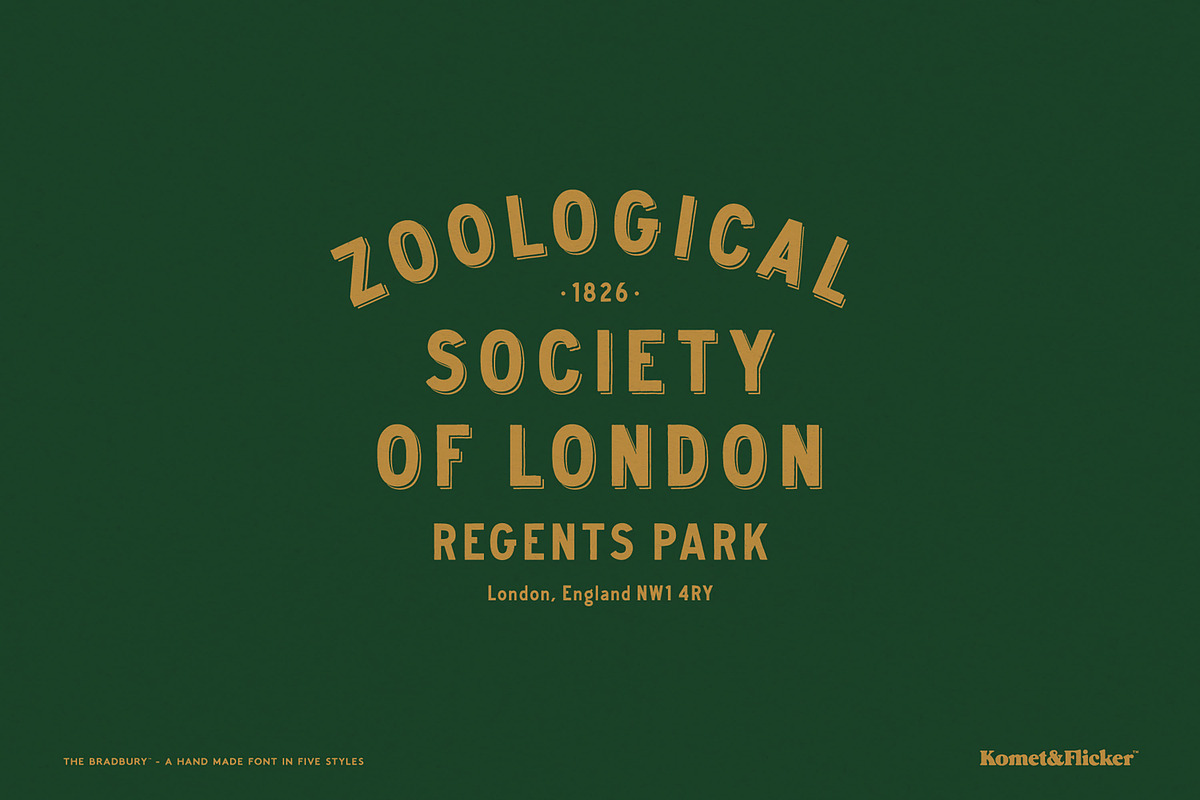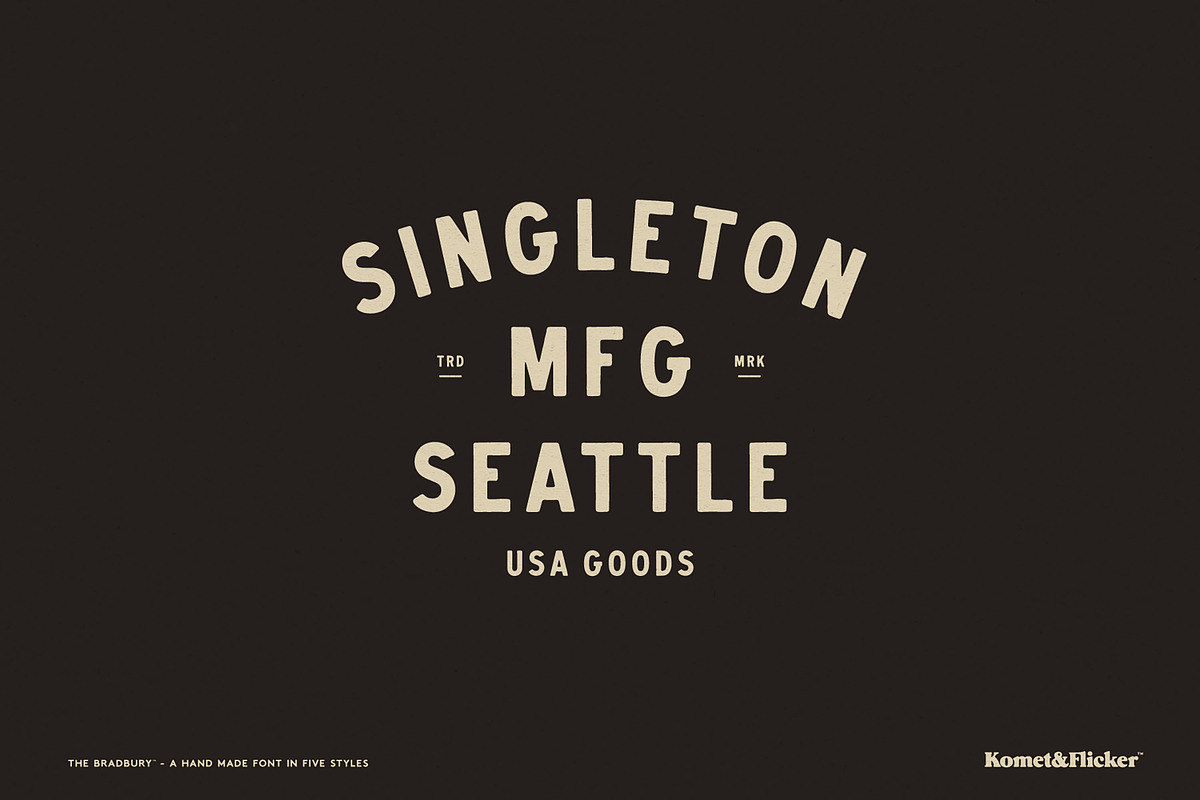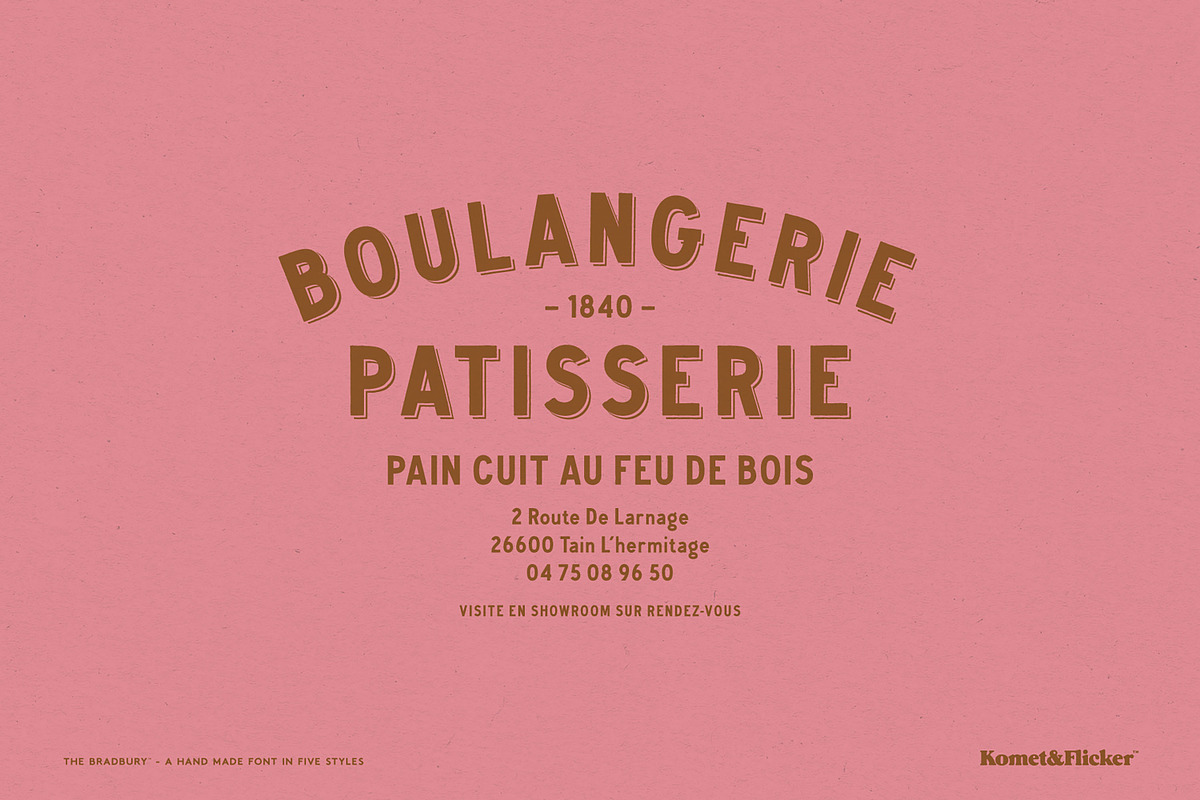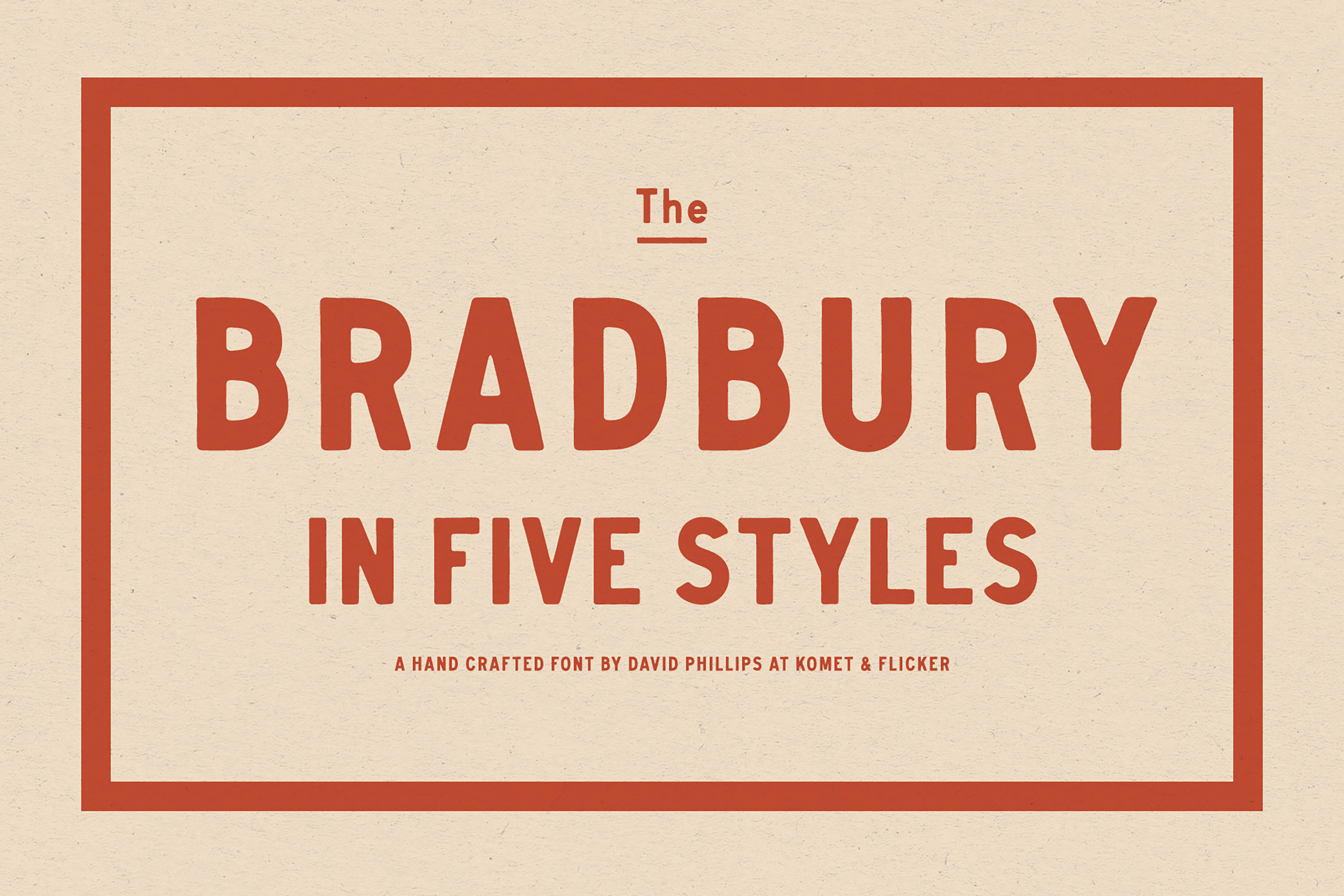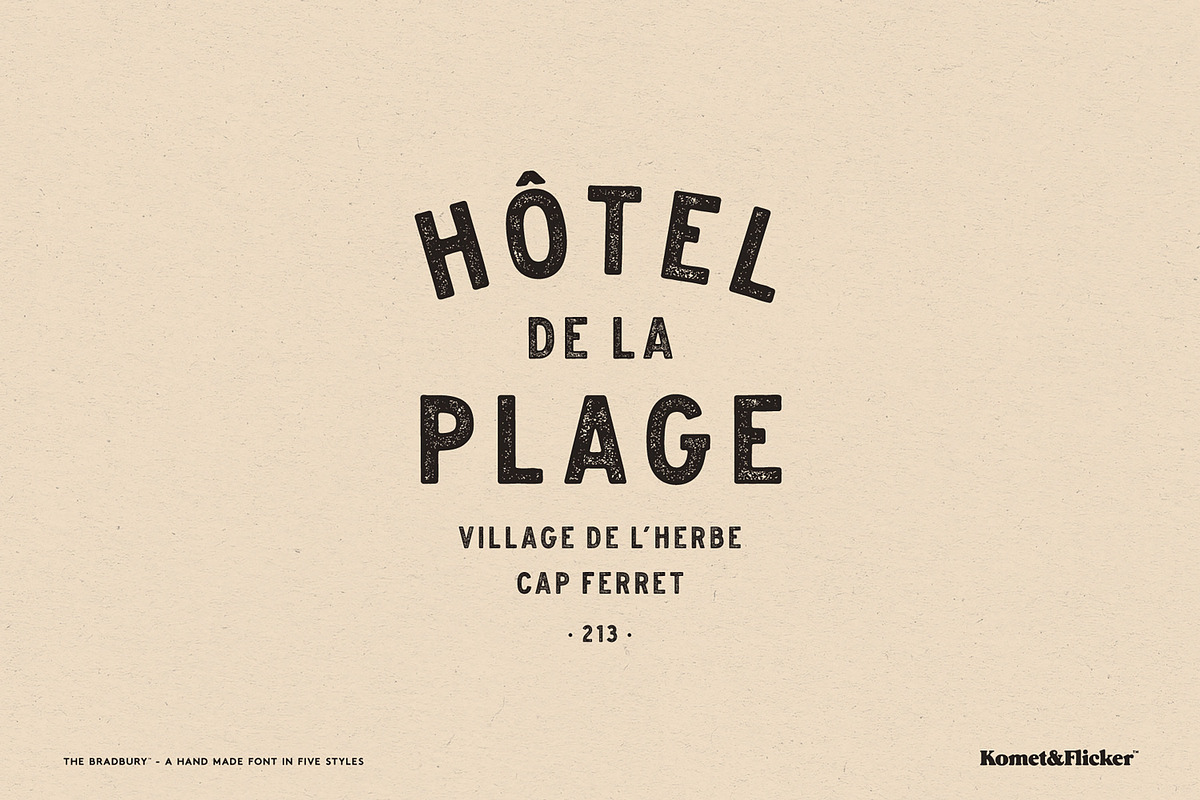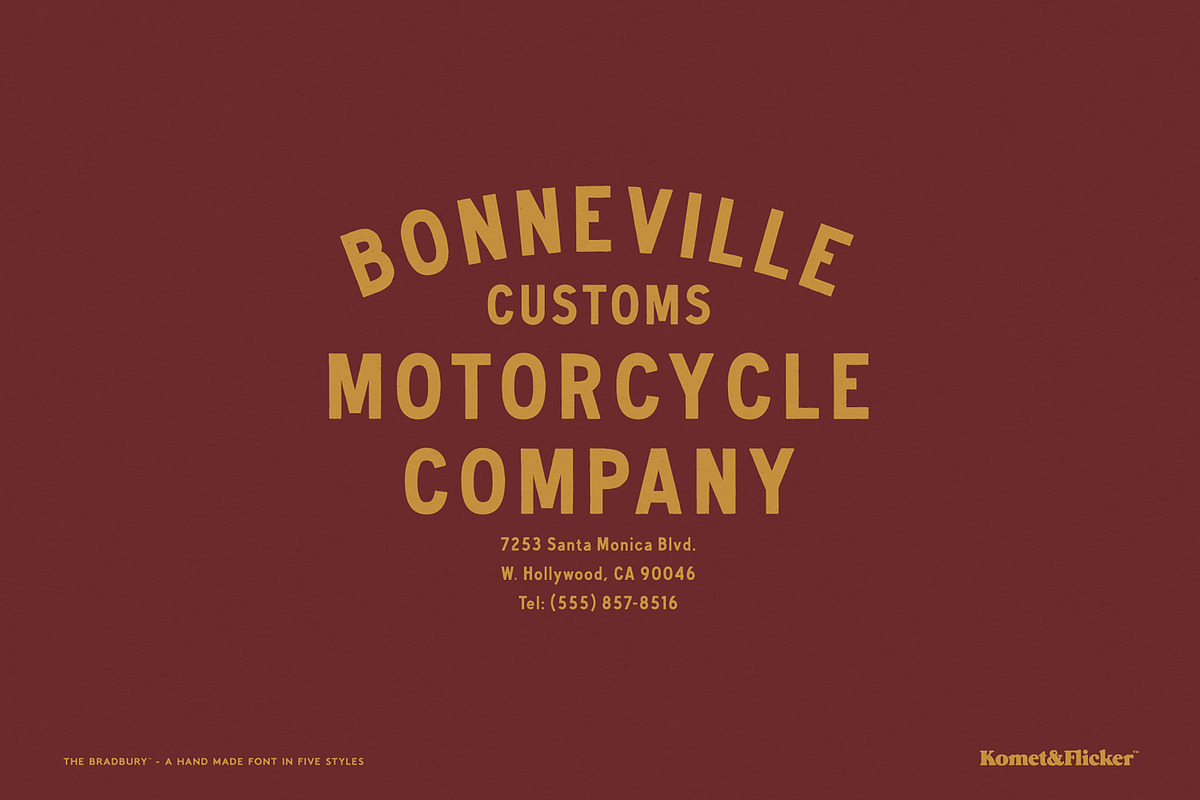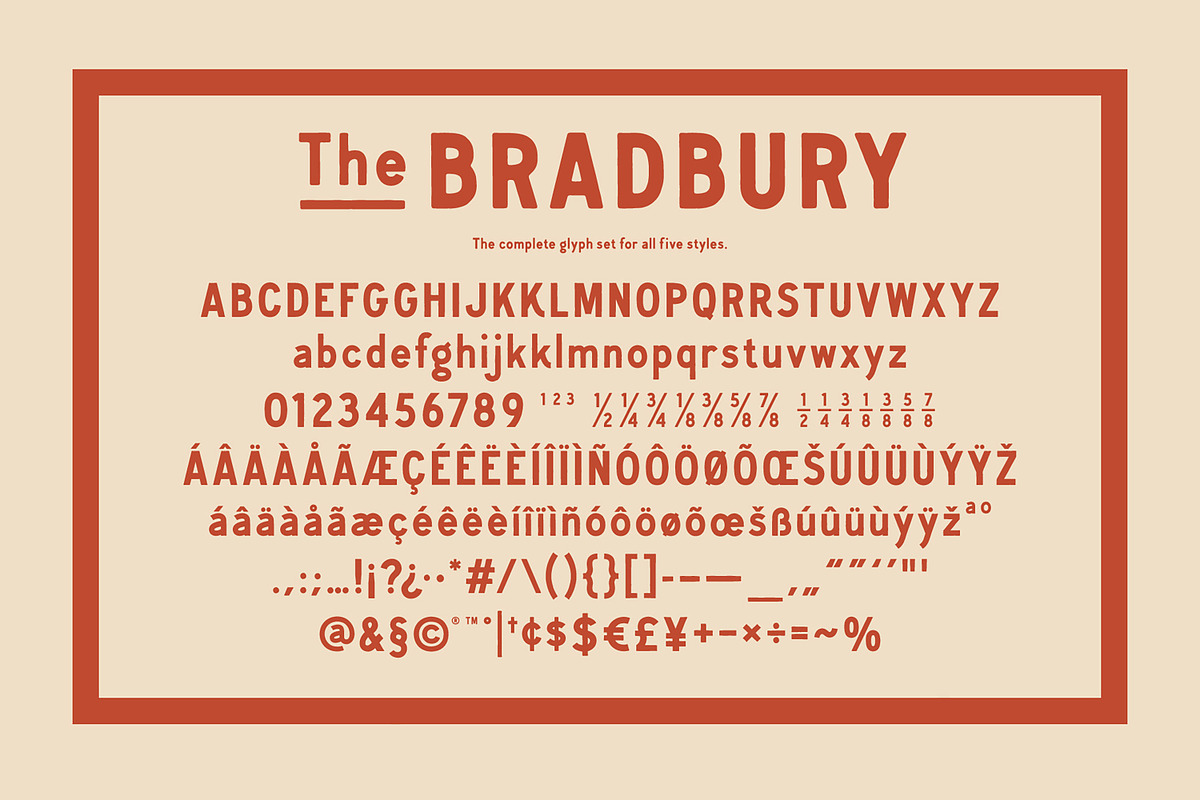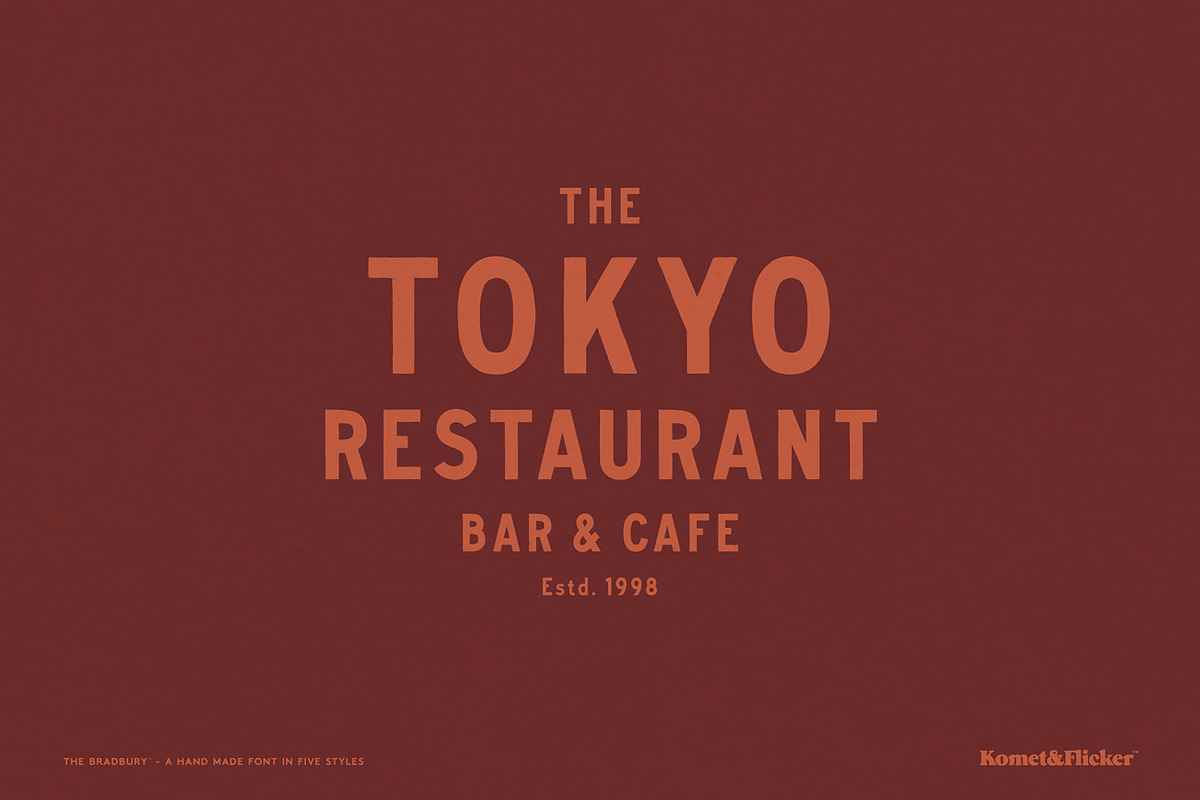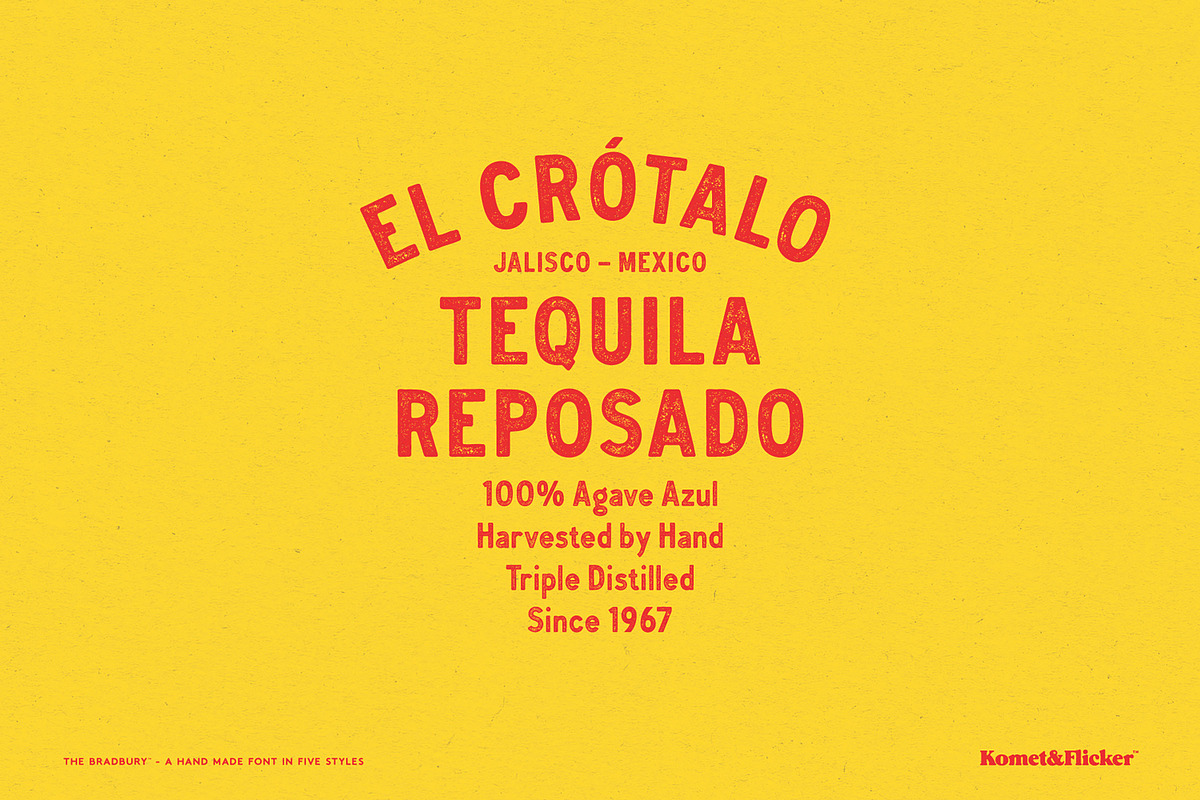
The Bradbury - A Hand Drawn Font
The Bradbury is a vintage-inspired hand-drawn condensed sans serif font. Commanding yet human, it carries the authentic imperfections of mid-century signage and poster lettering, the kind of type that projects bold warmth and character.
This font comes in five distinct styles: Regular, Shadow, Inline, Rustic, and Stamp, versions that give you a versatile toolkit for creating compositions with a real hand-crafted feel. Also included are alternate glyphs for G, K, R, and k.
The Bradbury is perfect for logotypes, packaging, posters, apparel, and anywhere bold type needs to make a statement.
THIS FONT COMES IN FIVE STYLES
The Bradbury Regular
The Bradbury Inline
The Bradbury Rustic
The Bradbury Shadow
The Bradbury Stamp
THIS FONT INCLUDES
Full A-Z upper and lower case latin characters
Select European specific characters
Numbers, punctuation, and select symbols
Two styles of pre-made fractions
Alternate glyphs for: G, K, R, and k